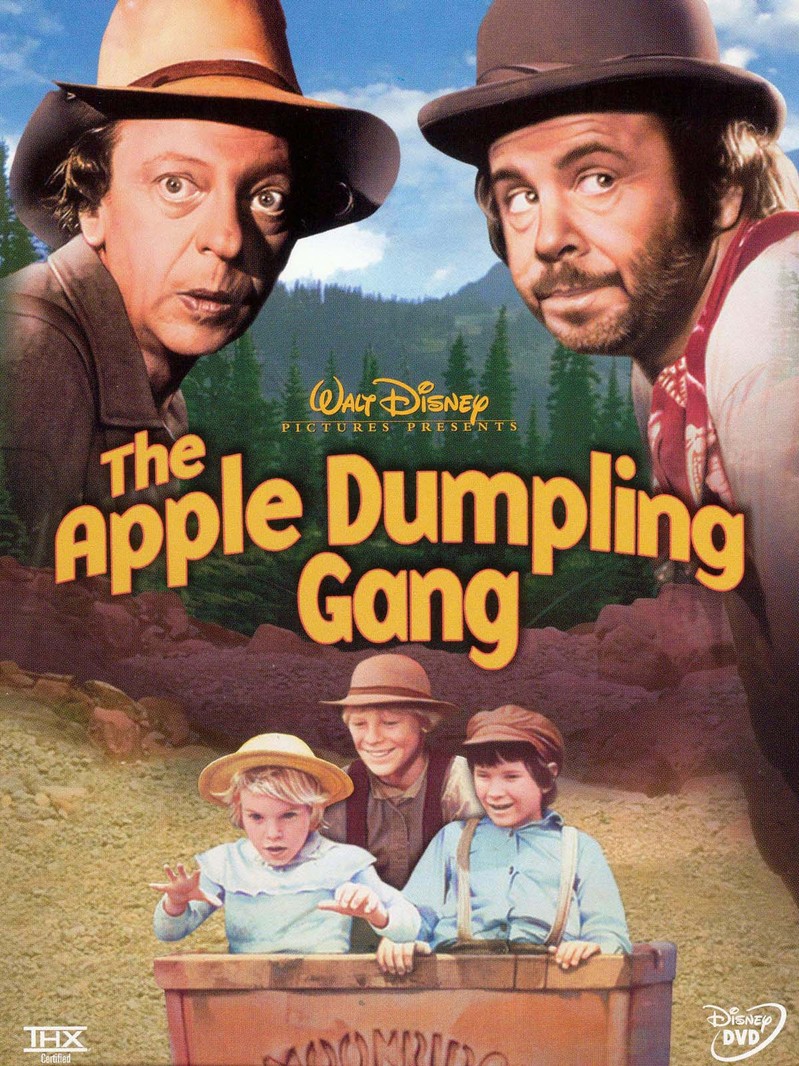
The Apple Dumpling Gang Font
Fonts in UseThe Apple Dumpling Gang is a 1975 family comedy film that follows two bumbling outlaws who accidentally become the guardians of a group of mischievous orphans, leading to hilarious adventures and unexpected life lessons in the Wild West.
The film poster features the title in Base 9 Sans Bold, a geometric sans serif font created by Zuzana Licko for Emigre in 1995.